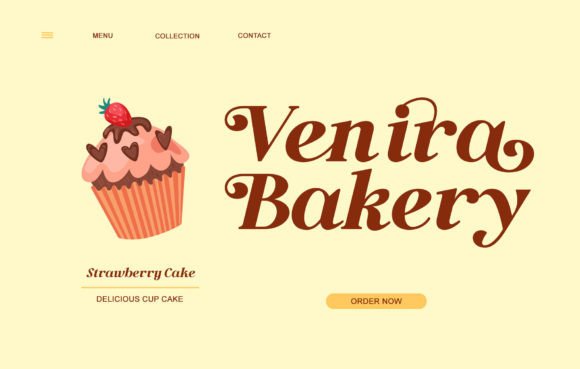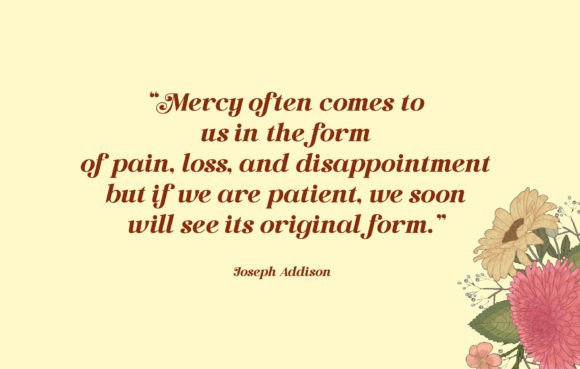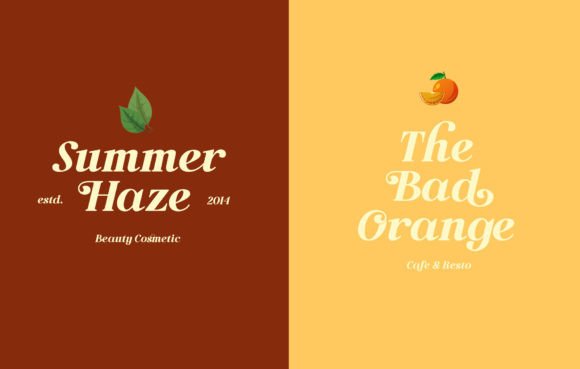
Introduction to Monish Font
Monish is a stylish serif font that blends classic elegance with modern sophistication.
Its refined serifs and well-proportioned letterforms make it perfect for branding, editorial work, and luxury designs This font brings a sense of timeless beauty and grace, enhancing any project with a touch of class.
Monish Font offers exceptional quality and versatility, making it a valuable addition to your design toolkit. Whether you’re creating for personal projects or commercial use, Monish Font delivers professional results.